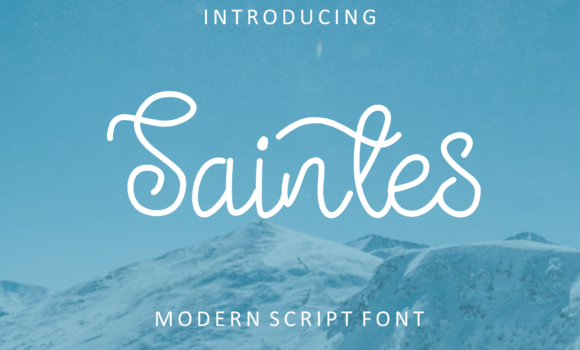
saintes
Saintes Font - Featured Image
Saintes Font – Free Download Introduction to Saintes Font Saintes is a vintage styled and authentic script font. 📸 Preview Gallery 2 images 📌 Product Name Saintes Font 👤 Author kalingga.albert 📂 Category Explore ⬇️ Download Saintes Font FREE Free